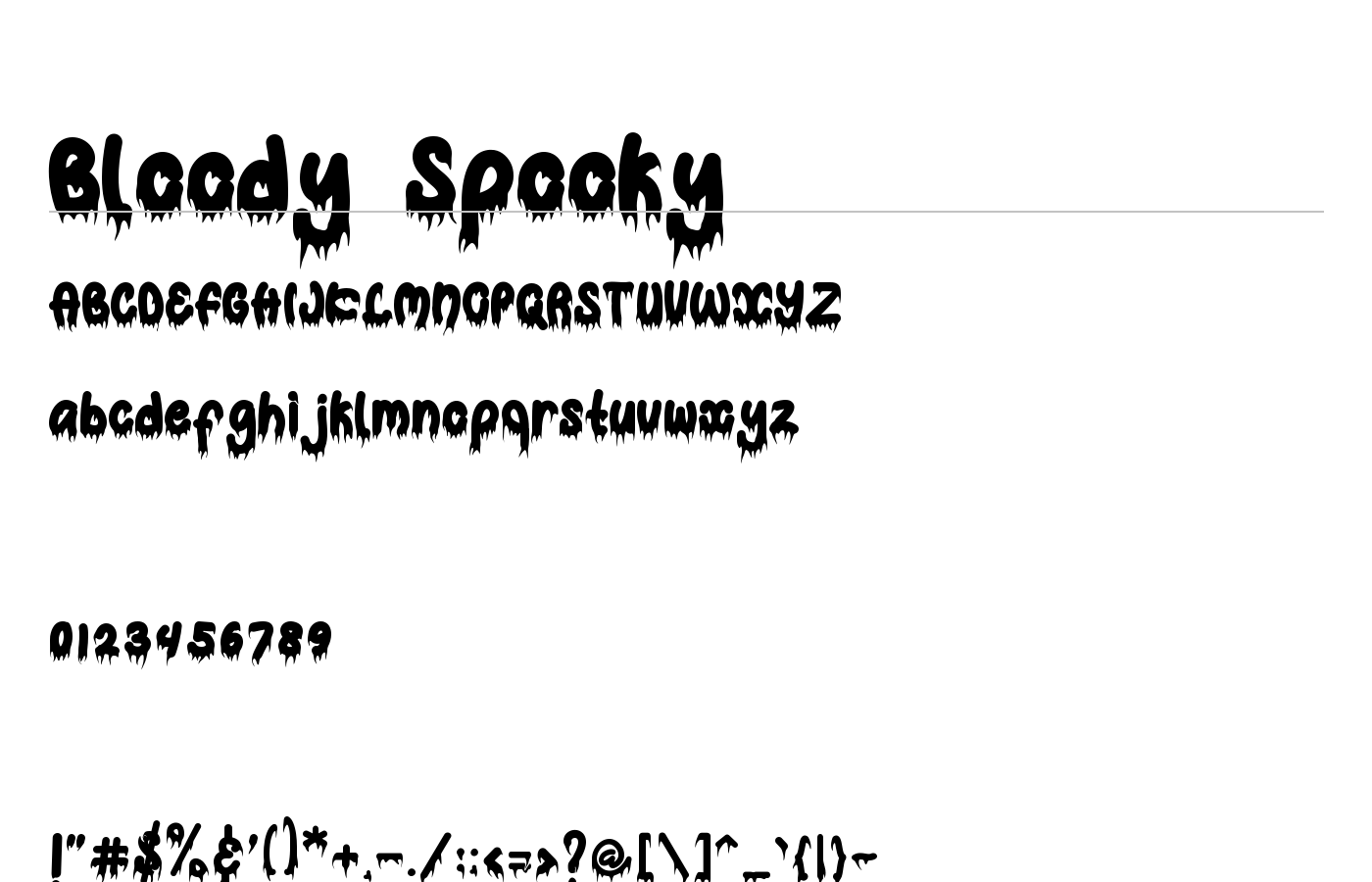
Bloody Spooky is a playful, decorative display font featuring thick, rounded letters with dripping, irregular edges that evoke a spooky, Halloween vibe. Its bold, condensed style with high contrast between the solid upper forms and the jagged drips below adds a fun yet eerie personality, perfect for seasonal designs, party invitations, or themed posters. This font works best for headlines and titles where its strong character can grab attention and set a chillingly festive mood.
Bloody Spooky Font
About Bloody Spooky Font